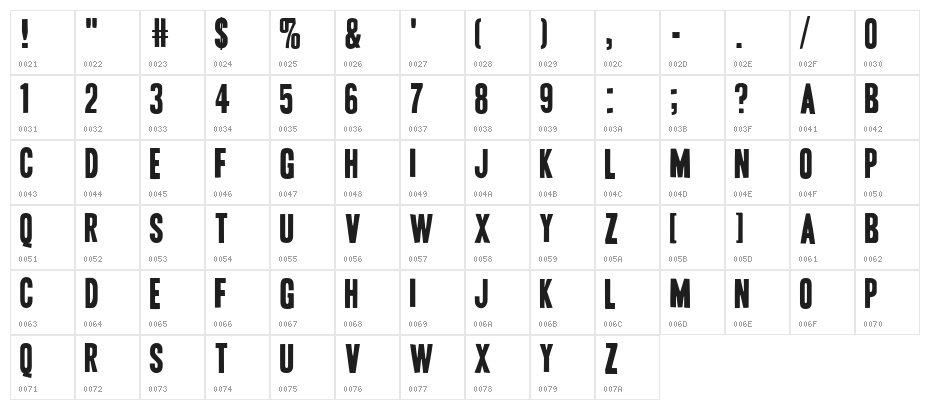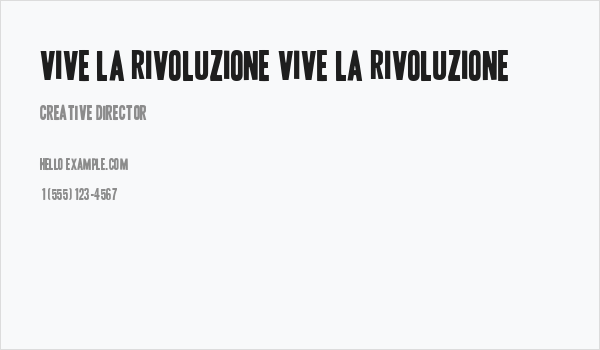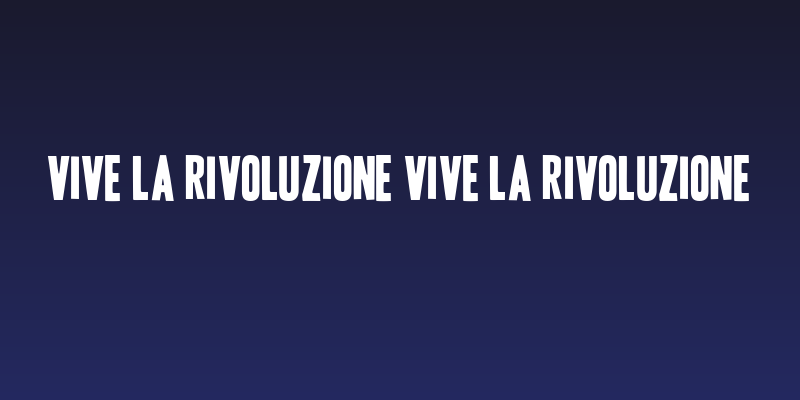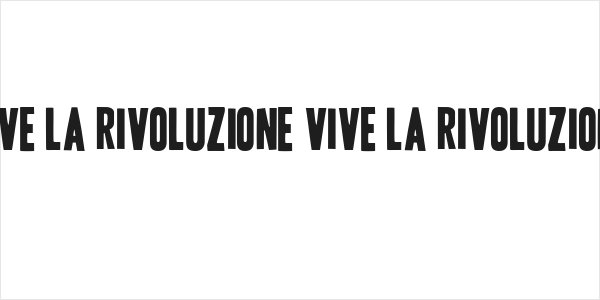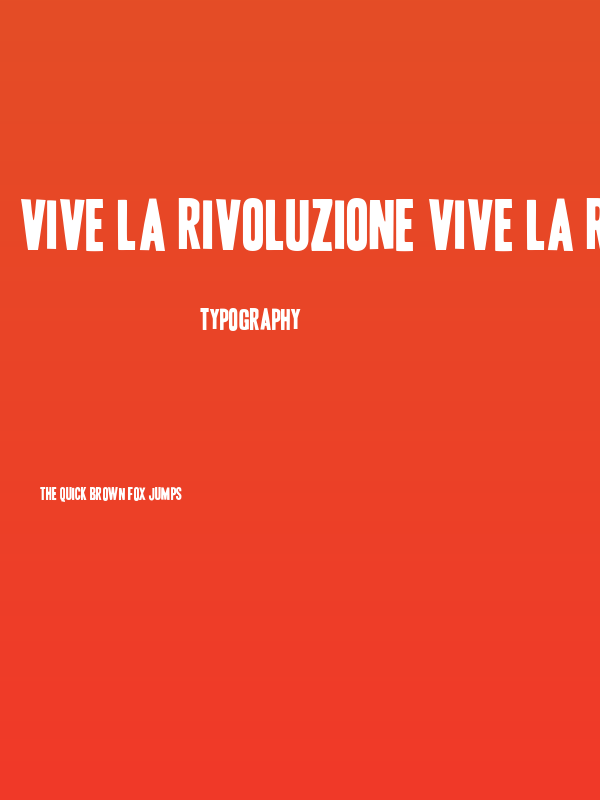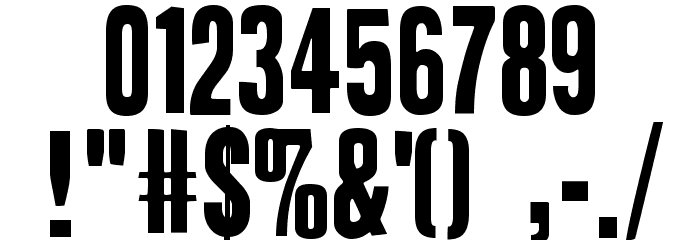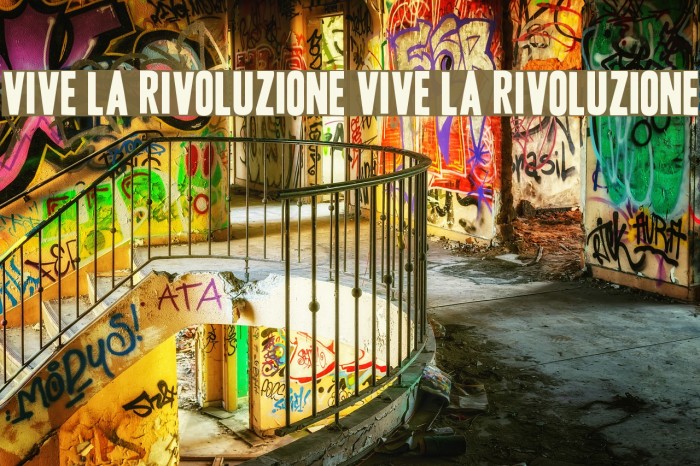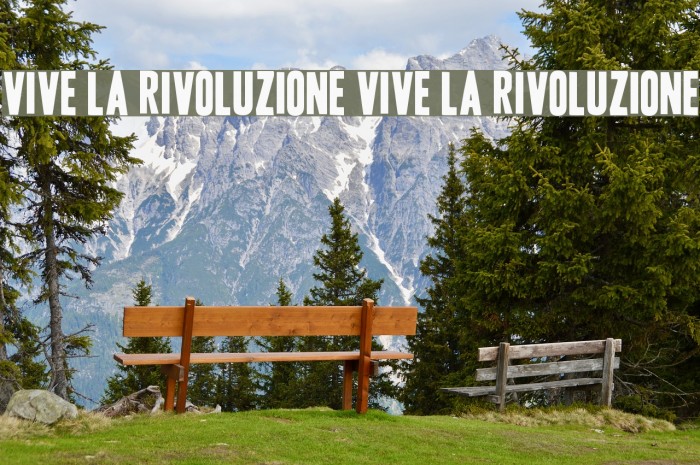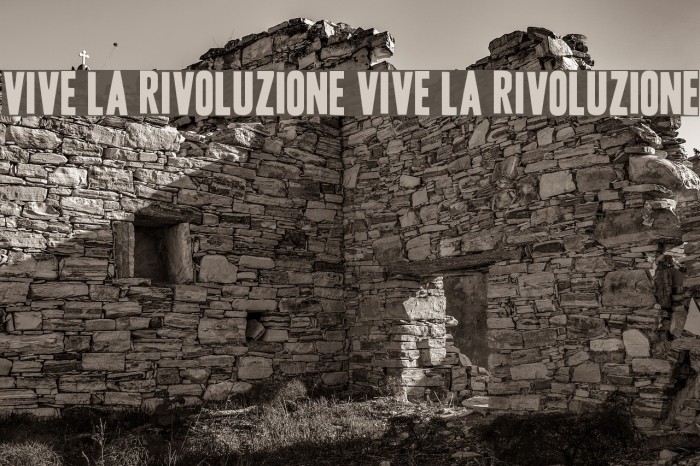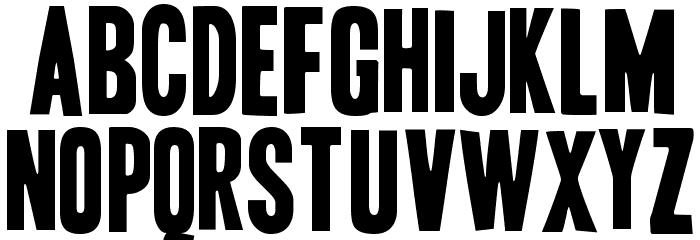
Vive la Rivoluzione Font
Vive la Rivoluzione Description
This font is a bold, impactful typeface with a strong presence. The characters are tall and condensed, featuring thick strokes that convey a sense of strength and authority. The uppercase letters are particularly striking, with a uniform height that enhances their boldness. The numbers and special characters maintain the same weight and style, ensuring consistency across all text elements. The overall design is clean and modern, making it suitable for attention-grabbing headlines and statements.